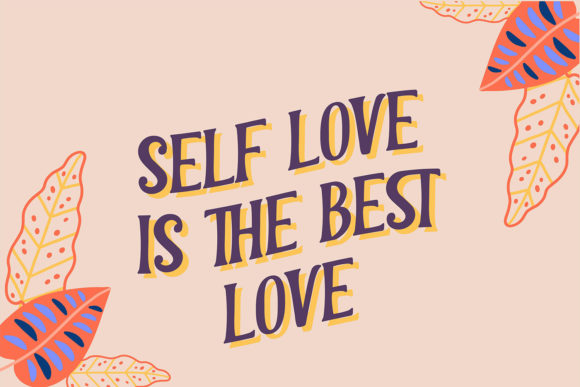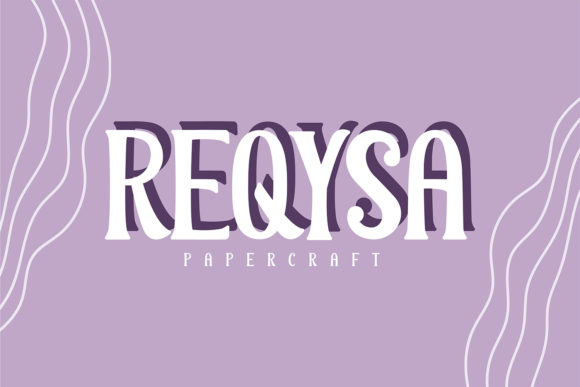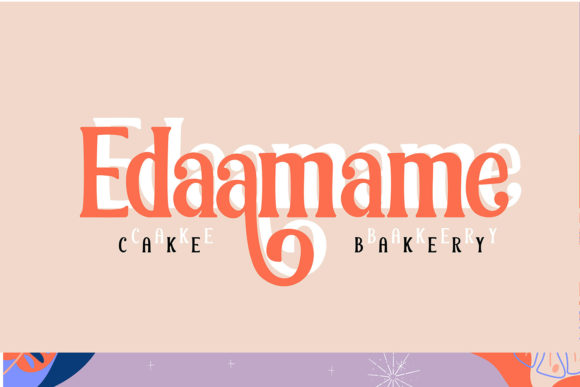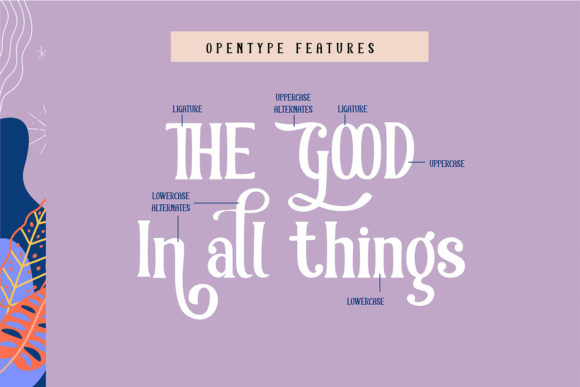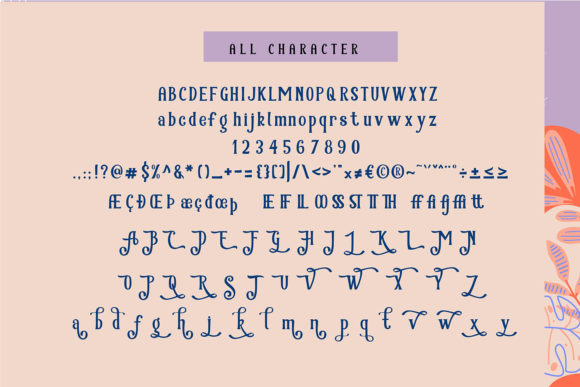
Introducing Blackcurrant Font: Elevate Your Designs with Style and Sophistication
In the world of typography, a good font can make all the difference in the success of a design project. Whether you’re a seasoned designer or a crafty DIY enthusiast, finding the right font can be a daunting task. That’s why we’re excited to introduce you to Blackcurrant Font, a stylish and bold serif font that’s sure to take your designs to the next level.
What is Blackcurrant Font?
Blackcurrant Font is a beautifully crafted serif font that’s perfect for designers and crafters looking to add a touch of elegance and sophistication to their projects. With its bold and stylish design, this font is sure to make a statement. Whether you’re working on a branding project, a website design, or a craft project, Blackcurrant Font is the perfect choice.
One of the standout features of Blackcurrant Font is its PUA (Private Use Area) encoding. This means that you can access all of the glyphs and swashes with ease, giving you complete creative control over your designs. With PUA encoding, you can easily insert special characters, ligatures, and other unique elements that will make your designs stand out.
Key Features of Blackcurrant Font
- Stylish and bold serif design: Blackcurrant Font features a beautifully crafted serif design that’s both stylish and bold.
- PUA encoded: With PUA encoding, you can access all of the glyphs and swashes with ease.
- Easy to use: Blackcurrant Font is designed to be easy to use, even for those with limited design experience.
- Perfect for a variety of projects: Whether you’re working on a branding project, a website design, or a craft project, Blackcurrant Font is the perfect choice.
Why Choose Blackcurrant Font?
So why choose Blackcurrant Font for your next design project? Here are just a few reasons:
- Add a touch of elegance and sophistication: Blackcurrant Font is the perfect choice for designers and crafters looking to add a touch of elegance and sophistication to their projects.
- Stand out from the crowd: With its bold and stylish design, Blackcurrant Font is sure to make your designs stand out from the crowd.
- Easy to use: Blackcurrant Font is designed to be easy to use, even for those with limited design experience.
- Versatile: Blackcurrant Font is perfect for a variety of projects, from branding and website design to crafting and DIY projects.
Tips and Tricks for Getting the Most Out of Blackcurrant Font
Here are a few tips and tricks for getting the most out of Blackcurrant Font:
- Experiment with different sizes and colors: Blackcurrant Font looks great in a variety of sizes and colors, so don’t be afraid to experiment.
- Use it with other fonts: Blackcurrant Font pairs well with other fonts, so try using it with a sans-serif font for a bold and modern look.
- Add a personal touch: With PUA encoding, you can easily add a personal touch to your designs by inserting special characters, ligatures, and other unique elements.
In conclusion, Blackcurrant Font is a stylish and bold serif font that’s perfect for designers and crafters looking to add a touch of elegance and sophistication to their projects. With its PUA encoding and easy-to-use design, this font is sure to become a favorite in your design arsenal. So why wait? Download Blackcurrant Font today and start creating stunning designs that will leave a lasting impression.